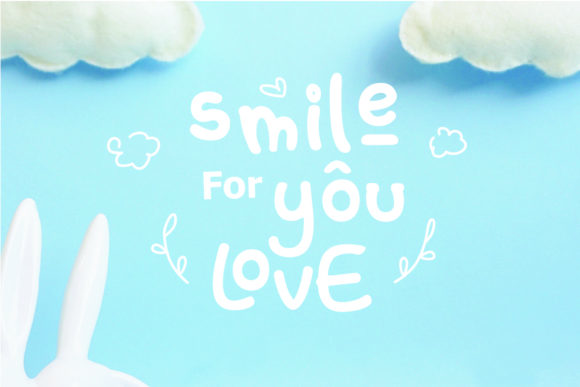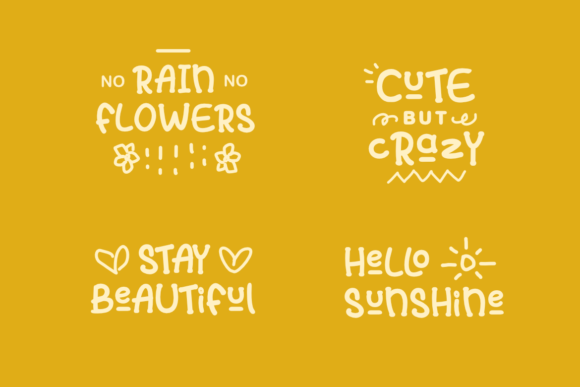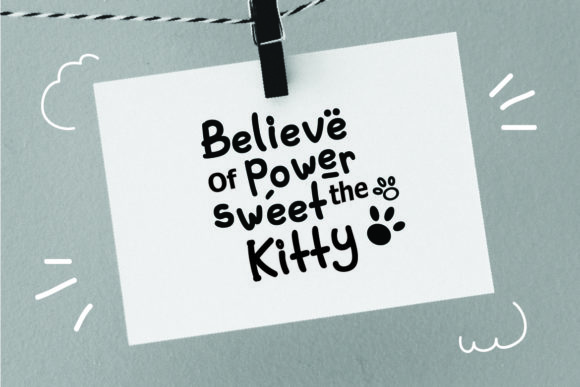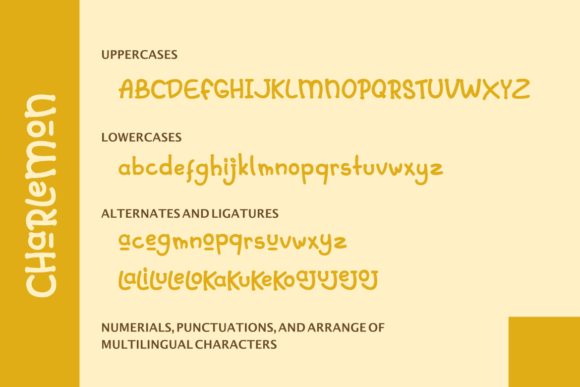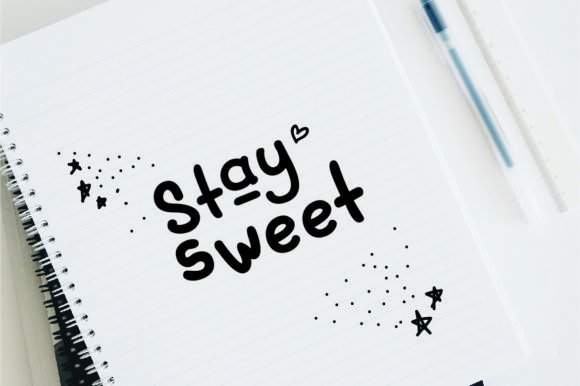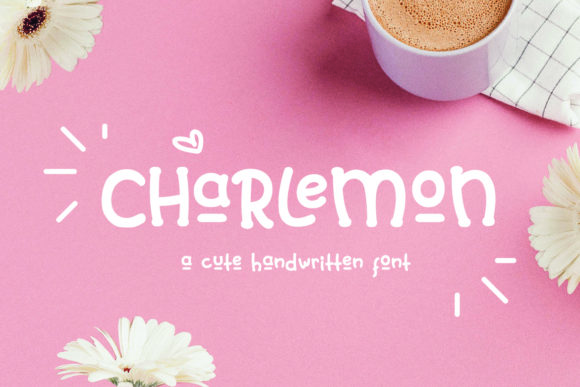
Introducing Charlemon Font: The Ultimate Display Font for Whimsical Designs
Are you a designer or crafter looking for a font that can add a touch of youthfulness and playfulness to your design projects? Look no further than Charlemon Font! This incredibly cute and sweet display font is sure to capture the hearts of anyone who lays eyes on it. With its undeniably whimsical charm, Charlemon Font is the perfect addition to any design project that requires a dash of fun and personality.
What Makes Charlemon Font So Special?
Charlemon Font is a one-of-a-kind display font that boasts a unique and captivating style. Its whimsical charm is sure to make your design projects stand out from the crowd and leave a lasting impression on your audience. Whether you’re working on a logo, branding materials, or marketing collateral, Charlemon Font is the perfect choice for adding a touch of playfulness and sophistication.
Key Features of Charlemon Font
• Cute and Sweet Design: Charlemon Font features a cute and sweet design that’s sure to delight audiences of all ages.
• Whimsical Charm: The font’s whimsical charm is undeniable, making it perfect for design projects that require a touch of playfulness.
• Youthful Spin: Charlemon Font will effortlessly put a youthful spin on any design project, making it perfect for brands and businesses looking to appeal to a younger audience.
• Display Font: Charlemon Font is a display font, making it perfect for headlines, titles, and other display text.
How to Use Charlemon Font in Your Design Projects
Charlemon Font is incredibly versatile and can be used in a variety of design projects, including:
• Logo Design: Use Charlemon Font to create a custom logo that’s both playful and sophisticated.
• Branding Materials: Add a touch of whimsy to your branding materials, such as business cards, brochures, and letterheads.
• Marketing Collateral: Use Charlemon Font to create eye-catching marketing collateral, such as flyers, posters, and social media graphics.
• Crafting Projects: Charlemon Font is also perfect for crafters who want to add a personal touch to their projects, such as handmade cards, scrapbooking, and DIY crafts.
Tips for Getting the Most Out of Charlemon Font
To get the most out of Charlemon Font, here are a few tips to keep in mind:
• Use it as a Display Font: Charlemon Font is designed to be used as a display font, so use it to create eye-catching headlines and titles.
• Experiment with Colors: Charlemon Font looks great in a variety of colors, so don’t be afraid to experiment and find the perfect color scheme for your design project.
• Pair it with Other Fonts: Charlemon Font pairs well with other fonts, so try pairing it with a sans-serif font for a bold and playful look.
Charlemon Font is a one-of-a-kind display font that’s sure to add a touch of whimsy and playfulness to any design project. With its cute and sweet design, whimsical charm, and youthful spin, Charlemon Font is the perfect choice for designers and crafters who want to create eye-catching and engaging designs. So why wait? Download Charlemon Font today and start creating your own whimsical designs!